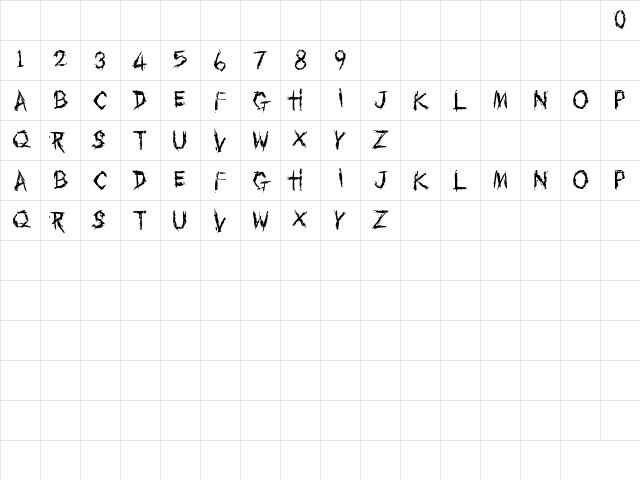
Under Influence Regular
Under Influence Family
Under Influence Regular
Design Context for Under Influence
Under Influence is a composed and adaptable typeface that performs quietly and consistently across a wide range of design contexts.